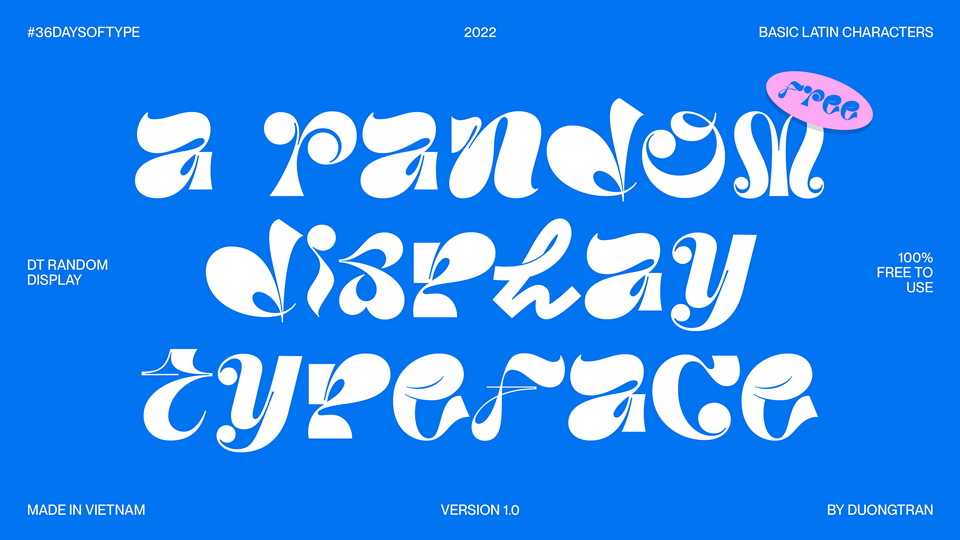
Download DT Random Display font, a mixed typeface inspired from smoothness, is uses ink traps to add highlights and uniqueness. DT Random Display is typeface that can be as funky and playful as we all are.
Designer: Duong Tran